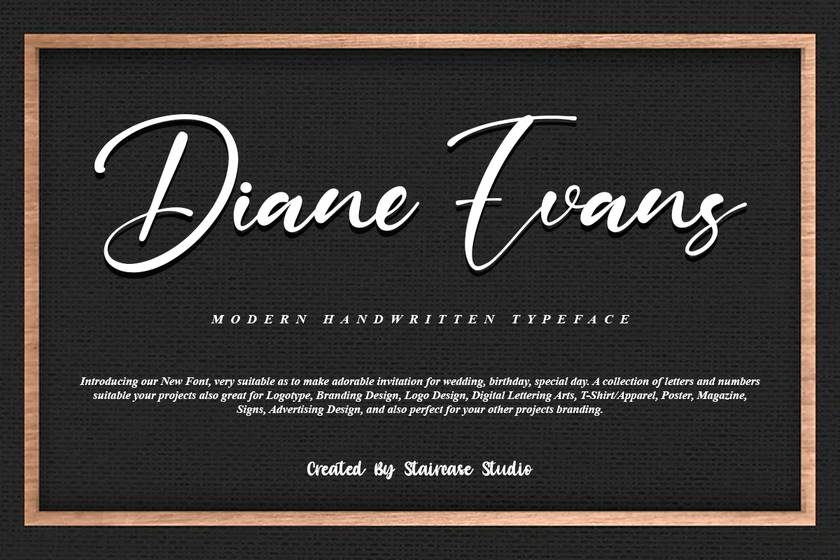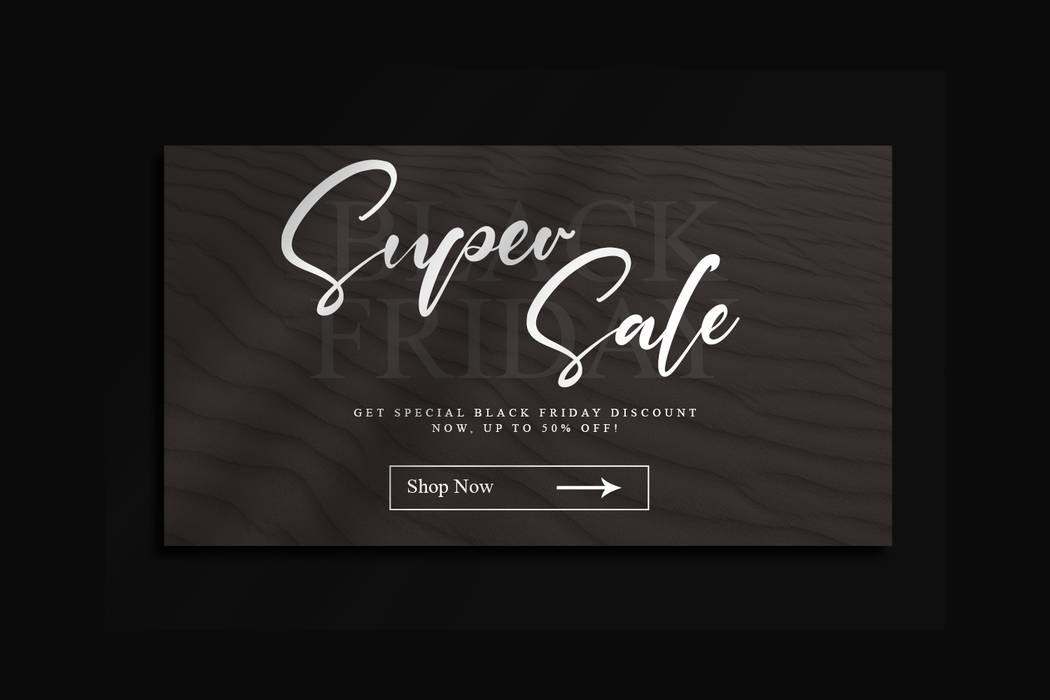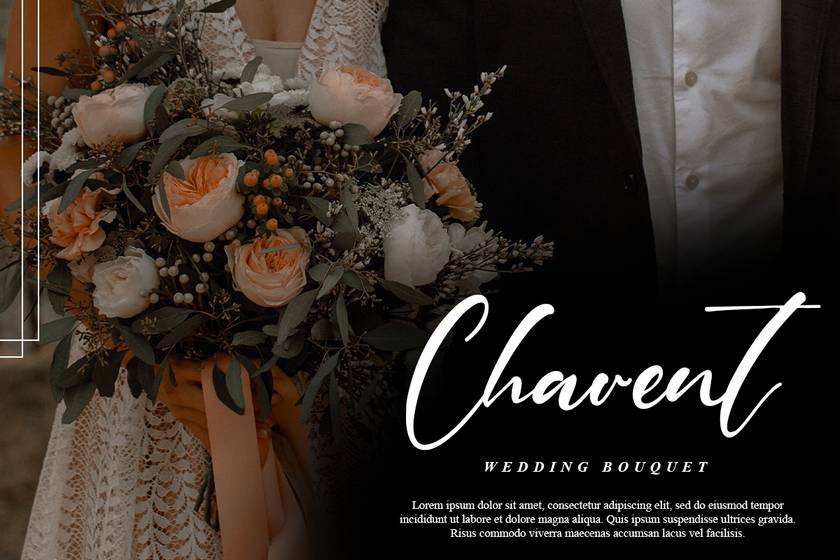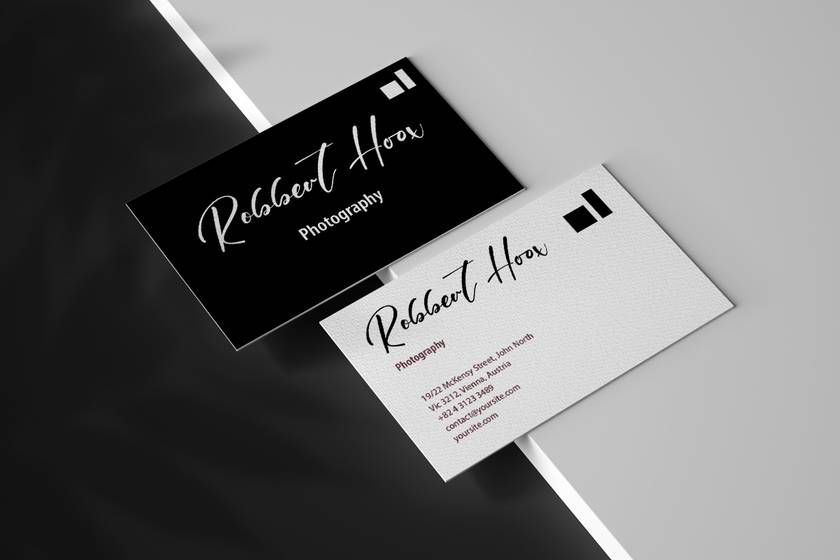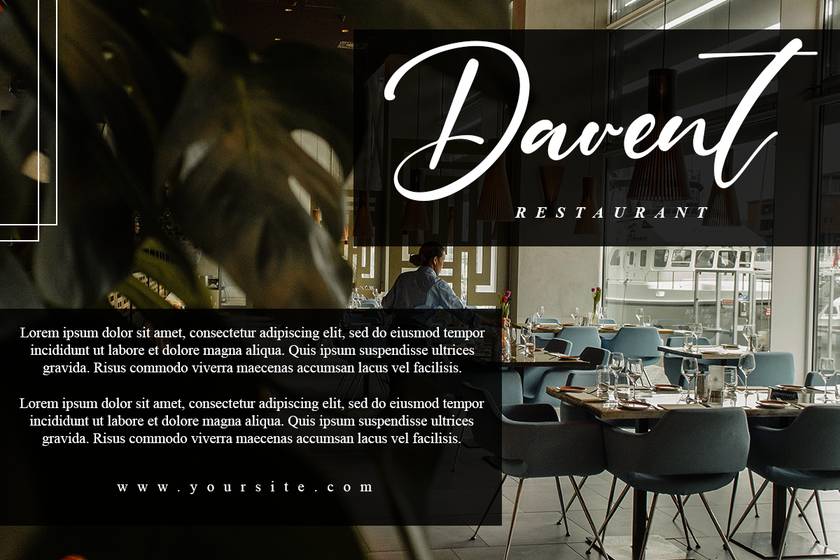
Diane Evans Font is an elegant script typeface with a graceful, flowing style that mimics natural handwriting. Its smooth, moderately contrasted strokes and refined letterforms make it ideal for sophisticated branding, invitations, and stylish headlines where a personal, artistic touch is desired. This font’s delicate yet readable design adds a sense of charm and professionalism to any creative project.
Diane Evans Font
About Diane Evans Font
| Font family | Diane Evans Font |
| Release date | 2021-11-11 |
| Designer | Staircase Studio |